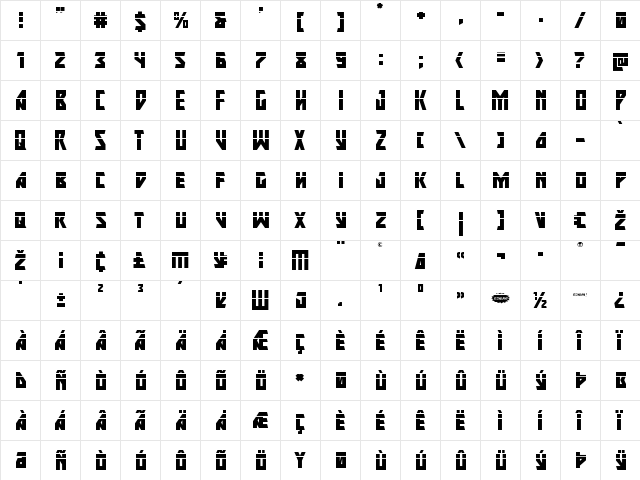
Major Force Laser Regular
Design Context for Major Force Laser Typeface
Major Force Laser brings high-energy athletic personality to the page — its confident, muscular forms are built for impact.
Built for sports team identities, athletic apparel, event posters, and high-energy promotional material.
Font Pairing: Use alongside a condensed or geometric sans for supporting copy — keep the pairing bold, functional, and free of ornament.
Pro Tip: Major Force Laser thrives on contrast — try it large, bold, and tight against a clean background for maximum visual impact.